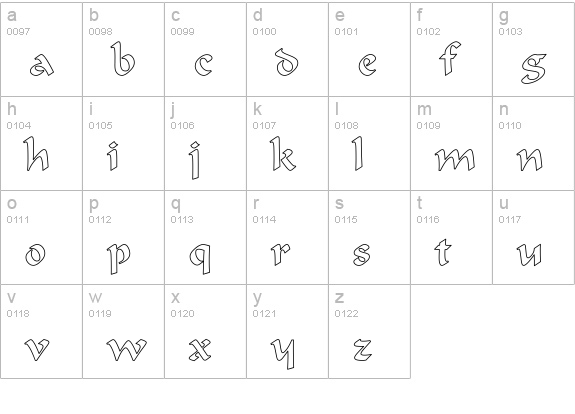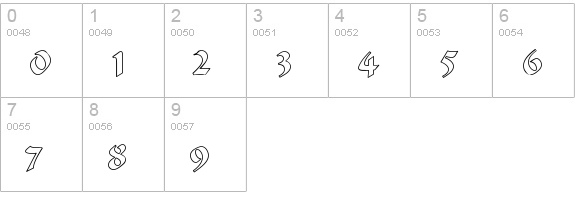
FormalScript-Regular Ho Font Details
FormalScript-Regular Ho is the standard, neutral variant in the FormalScript typeface family \xE2\x80\x94 well suited to general body text, paragraphs, and standard typographic work.